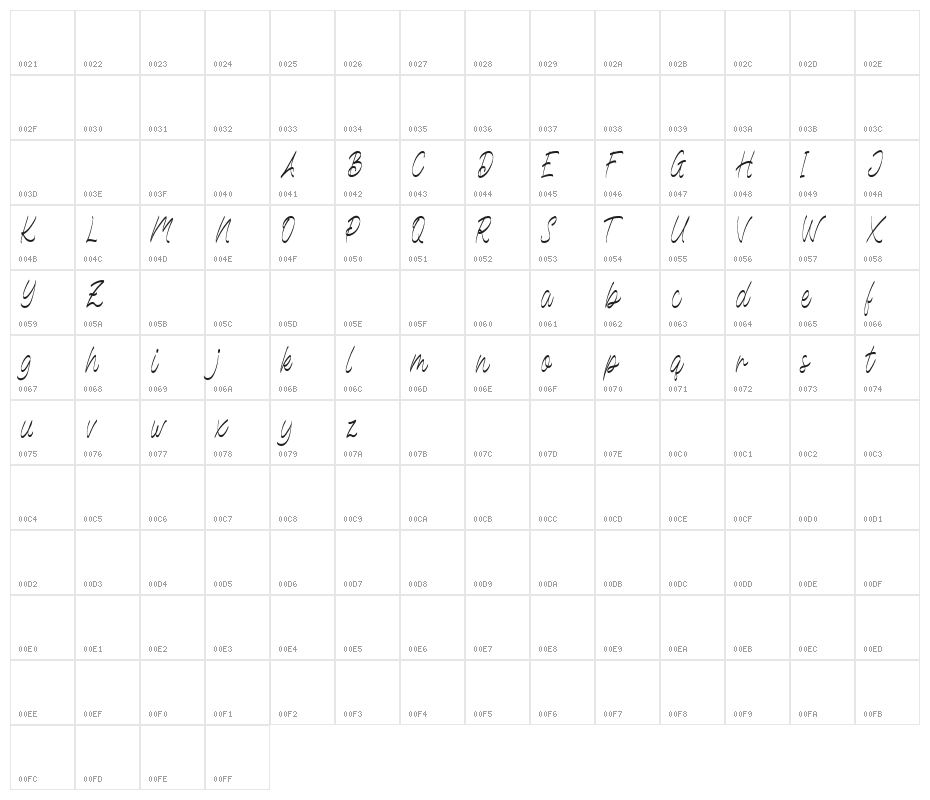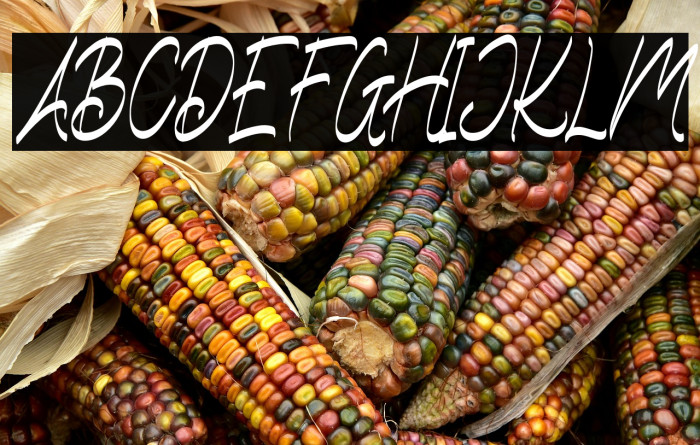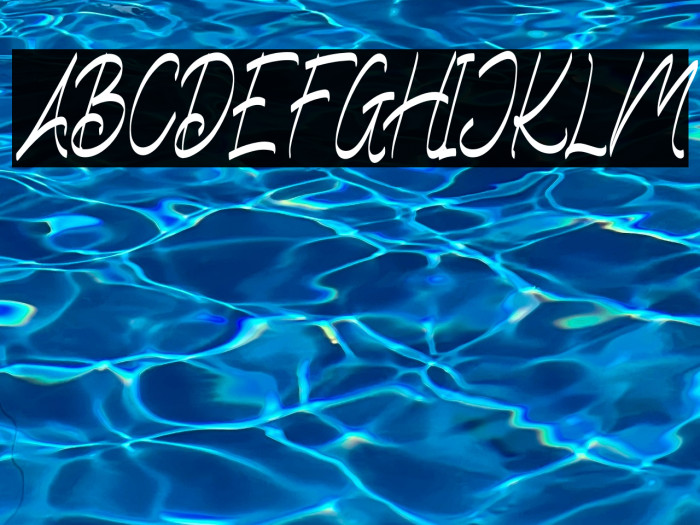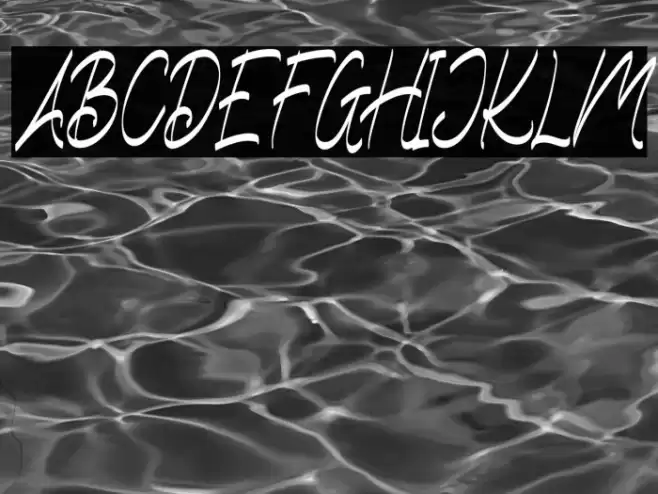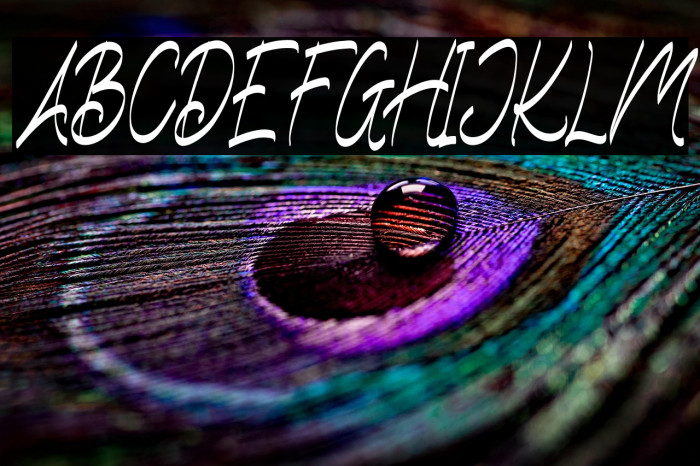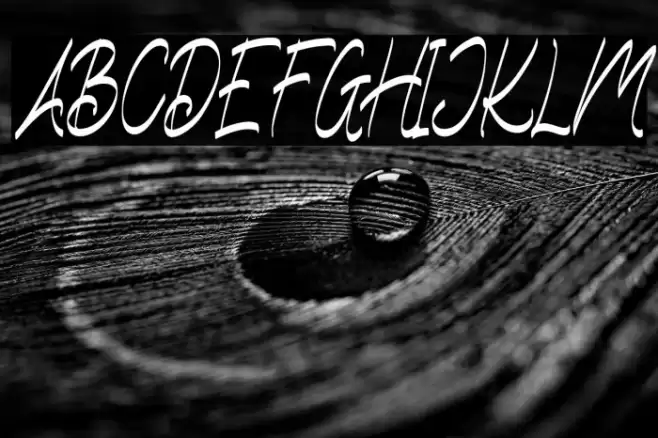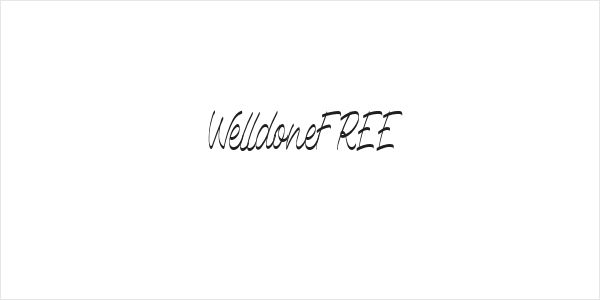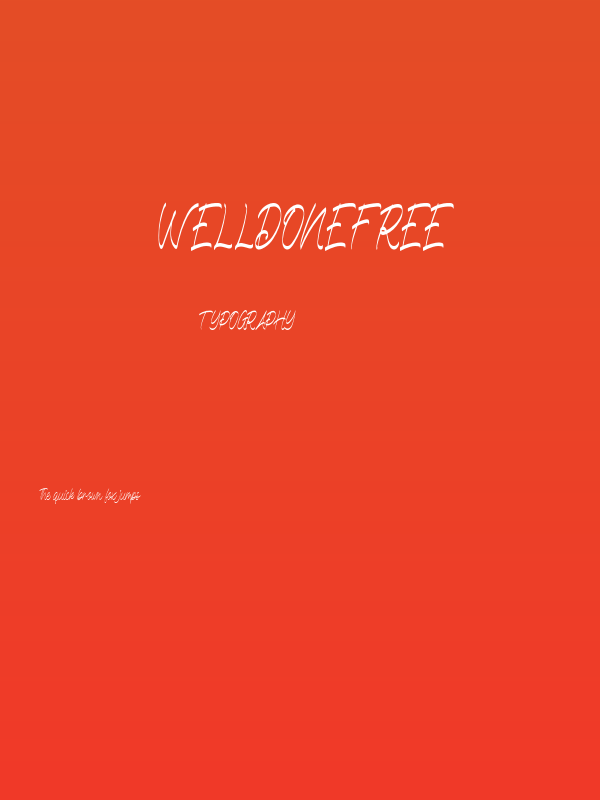
WelldoneFREE Font
WelldoneFREE Description
This font features a dynamic and fluid script style, characterized by its elegant, flowing lines and cursive letterforms. The uppercase letters are bold and slightly slanted, giving a sense of movement and sophistication. The lowercase letters maintain a consistent flow, with smooth connections between each character, enhancing the handwritten feel. The overall appearance is both stylish and legible, making it suitable for a variety of creative applications. The font's unique personality is conveyed through its graceful curves and balanced proportions, which add a touch of elegance to any design.